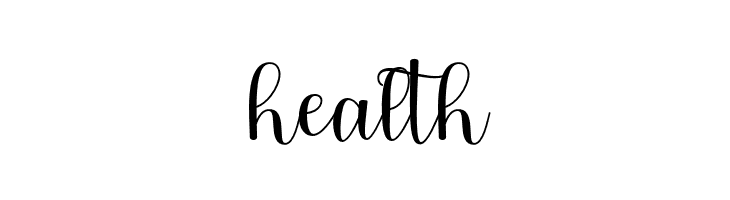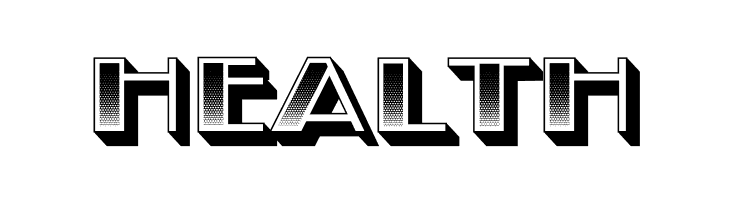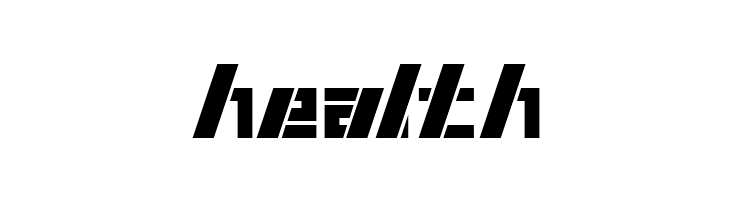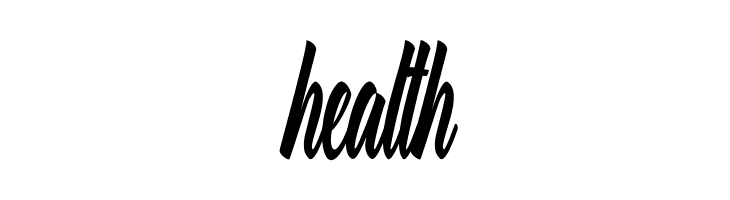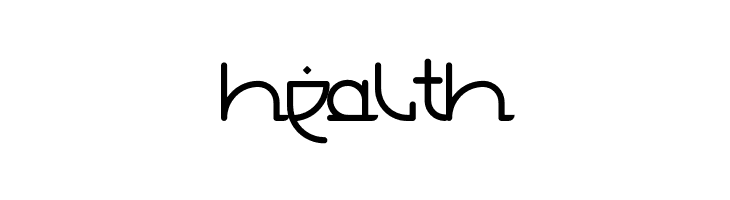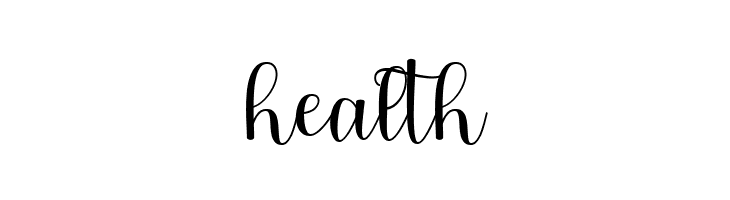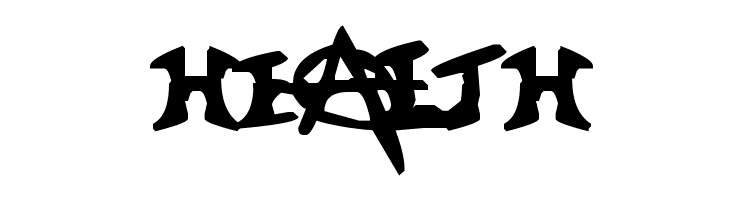
A dynamic and flowing script font with elegant cursive letterforms.
A bold, angular font with a futuristic and geometric style.
A clean, modern sans-serif font with uniform stroke width and excellent legibility.
A modern, geometric font with fluid, continuous lines and a futuristic aesthetic.
A graceful and elegant script font with flowing, cursive design.
A decorative cursive font with elegant loops and artistic flair.
An elegant, cursive script font with flowing, connected letters.
A graceful, cursive font with a fluid, handwritten style.
A bold, decorative font with a gradient effect and three-dimensional style.